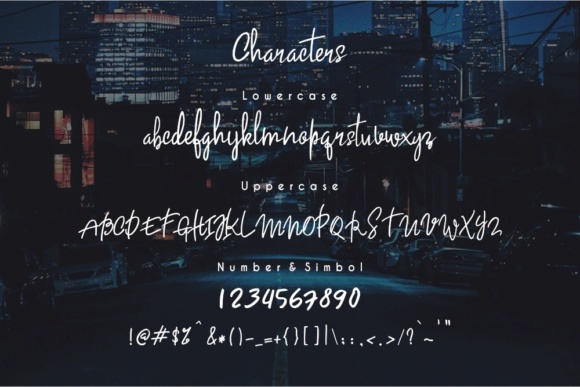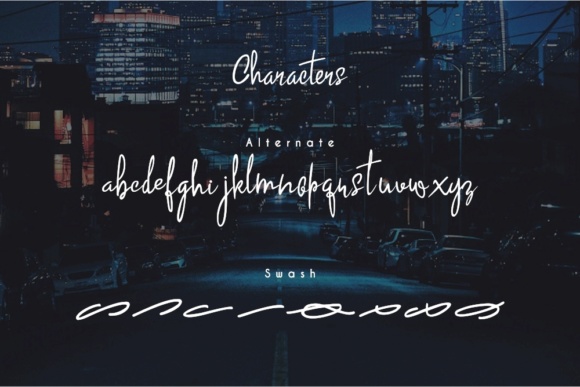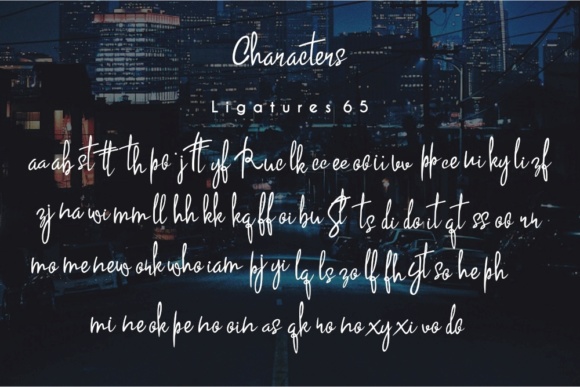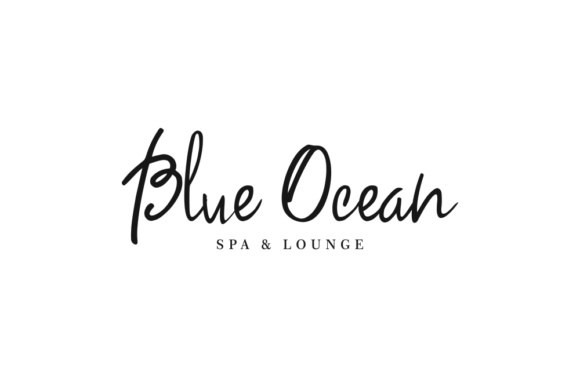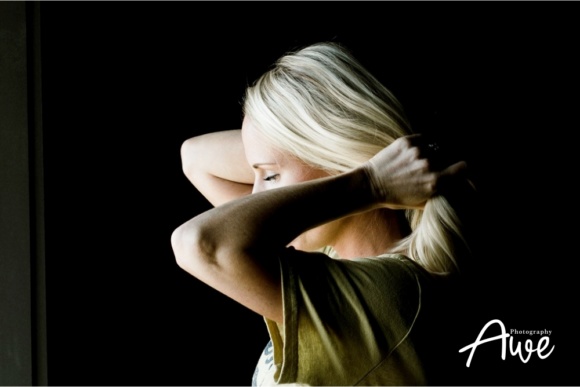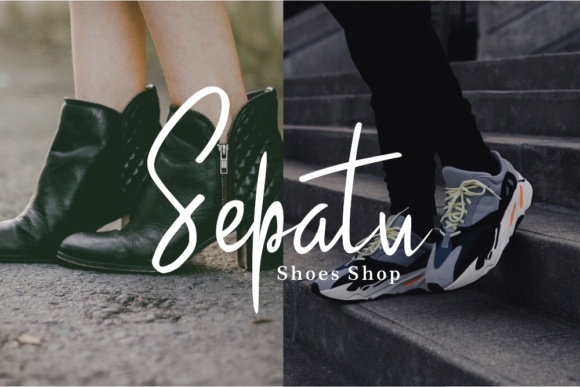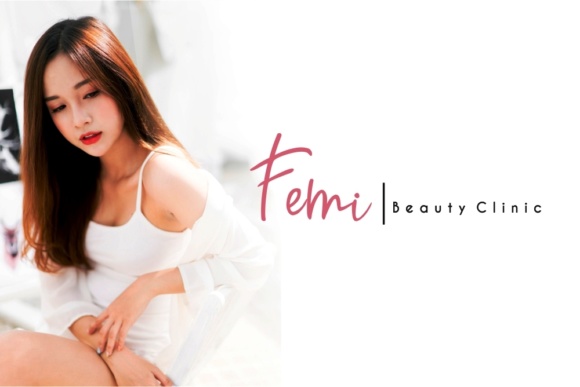
HomeScript FontsLos Angeles Font Script Fonts Los Angeles Font FacebookXPinterestWhatsApp Los Angeles Font Poster 2 Los Angeles Font Poster 3 Los Angeles Font Poster 4 Los Angeles Font Poster 5 Los Angeles Font Poster 6 Los Angeles Font Poster 7 Los Angeles Font Poster 8 About Los Angeles Font Los Angeles was created to look as close to a natural handwritten script as possible. DOWNLOAD NOW People also explored Damies Font Hello Saturday Font Right Away Font Hello Handmade Font Grateisey Font Shorin Bestie Font Khem Lf Font Wonderland Font Lullaby Font 477 0 TagsLos Angeles Font Previous articleTheorist FontNext articleKasandra Script Font LEAVE A REPLY Cancel reply Comment: Please enter your comment! Name:* Please enter your name here Email:* You have entered an incorrect email address! Please enter your email address here Website: Save my name, email, and website in this browser for the next time I comment. Personal Use Free Marthissa Personal Use Free Read more about this font Crayones Personal Use Free Read more about this font Airmole Personal Use Free Read more about this font Konexio Personal Use Free Read more about this font BLOG Best Fonts for T-Shirt Design – Top 2025 Picks In 2025, t-shirt design has become more than just fashion—it's a form of self-expression. Whether you're... Elegant Wedding Invitation Fonts – Handwritten & Script Fonts How to Cut Any Font on Cricut: Convert a Font to SVG (Free) Free vs Paid Fonts: Why Investing in Premium Fonts Is Worth It